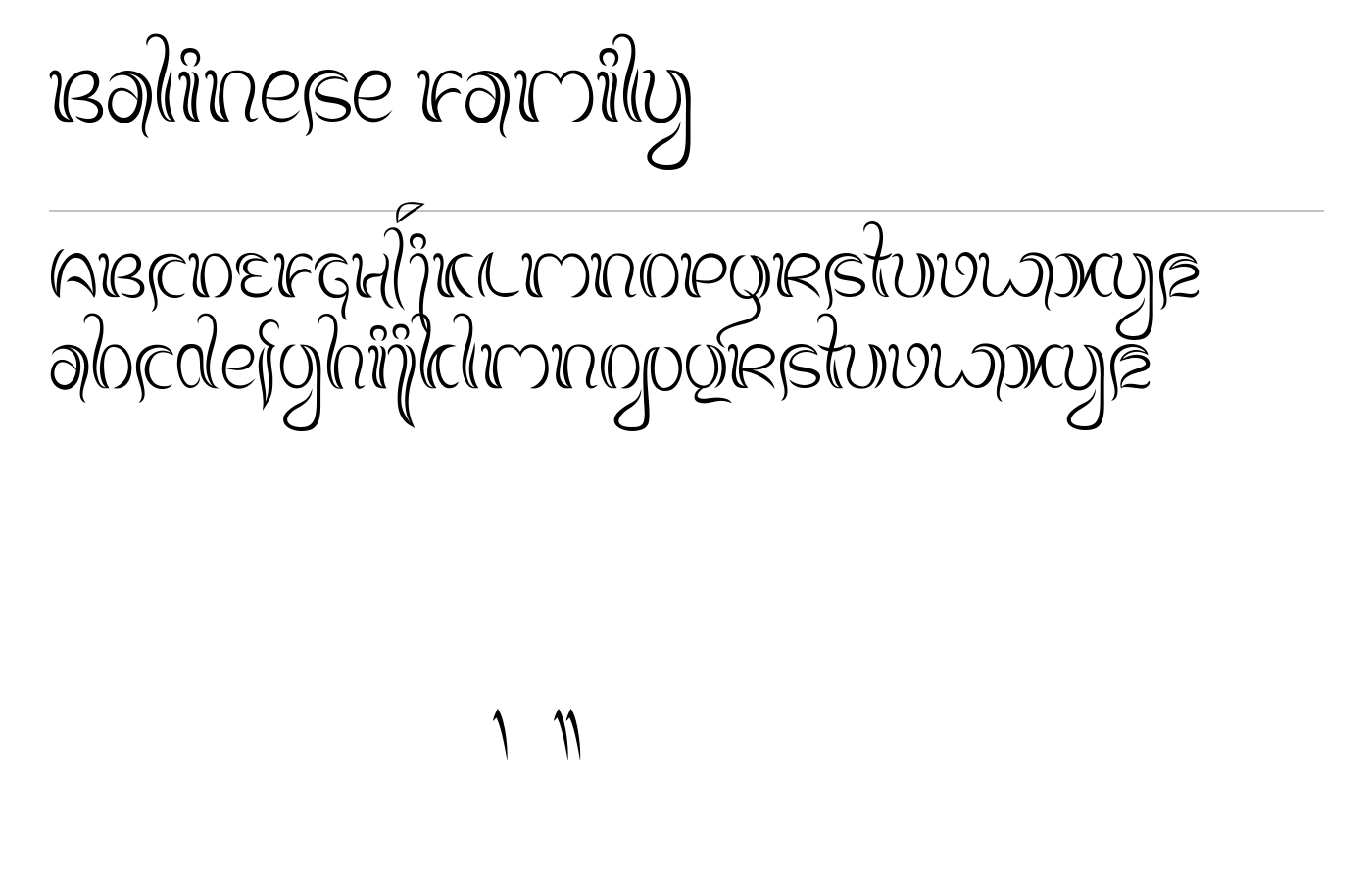
Balinese Family Font is an elegant, decorative serif typeface with slender, flowing strokes that evoke a handcrafted, artistic vibe. Its unique letterforms feature fine contrasts and curved details reminiscent of traditional calligraphy, making it ideal for creative branding, invitations, and cultural designs where a distinctive, graceful look is desired. This font works best in headlines and display uses where its intricate style can be appreciated without sacrificing readability.
Balinese Family Font
About Balinese Family Font
| Font family | Balinese Family Font |
| Designer | Adien Gunarta |